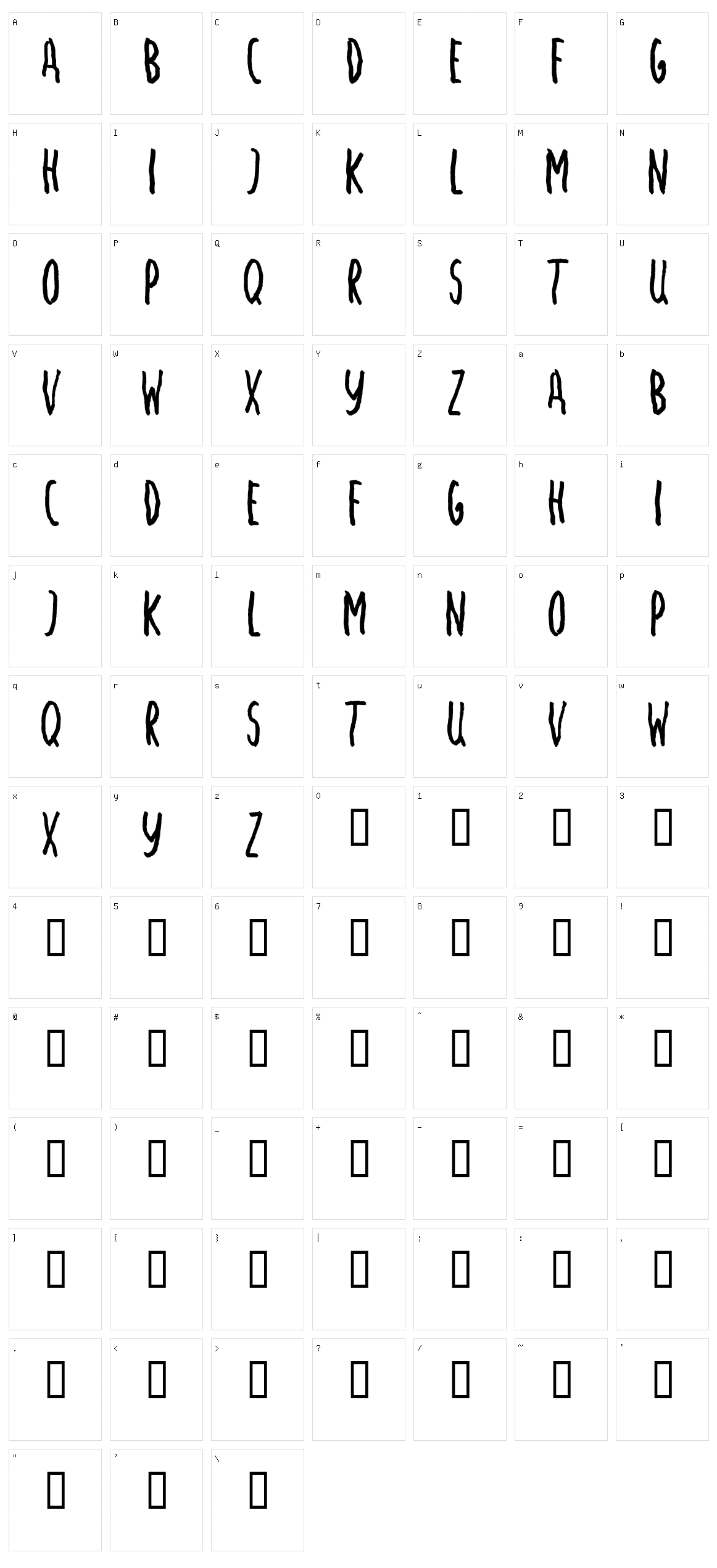
The free font Angst is carefully designed by Uli Germany, showcasing a thoughtful balance of creativity and usability and falls under the Horror font style. When you download the ZIP file, it contains only 61.95 KB of font files, making it lightweight and quick to download. Please review the license details below to understand permitted usage and distribution rights. If license information is not available, we recommend using this font for personal projects only or contacting the author directly for commercial usage permissions.